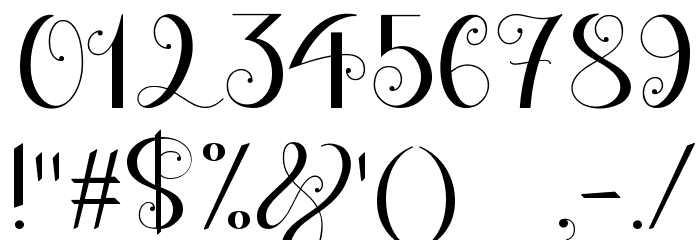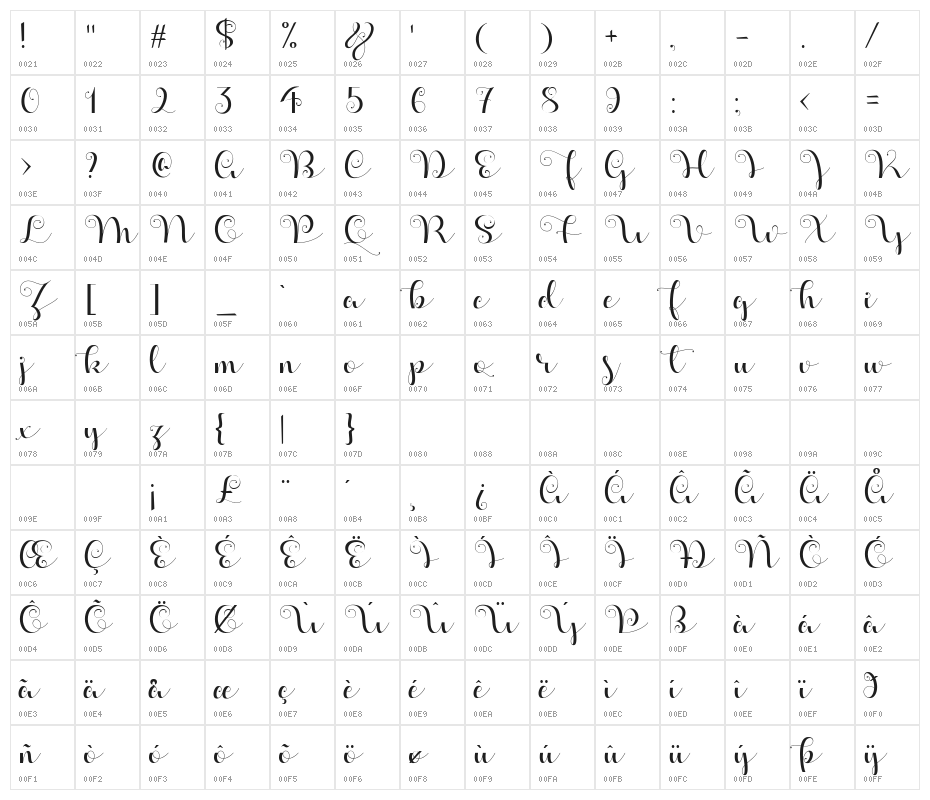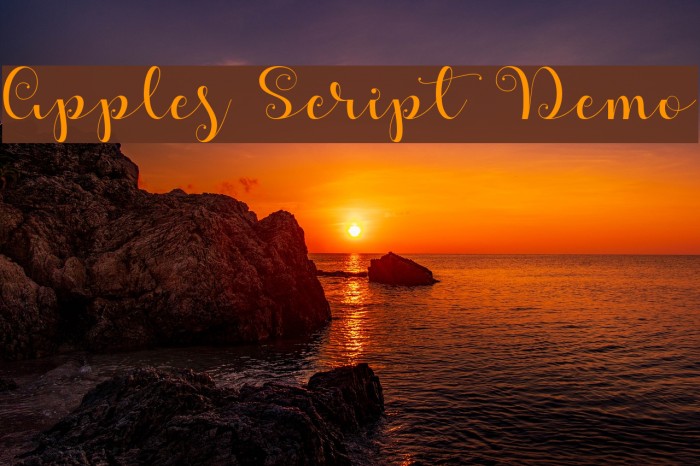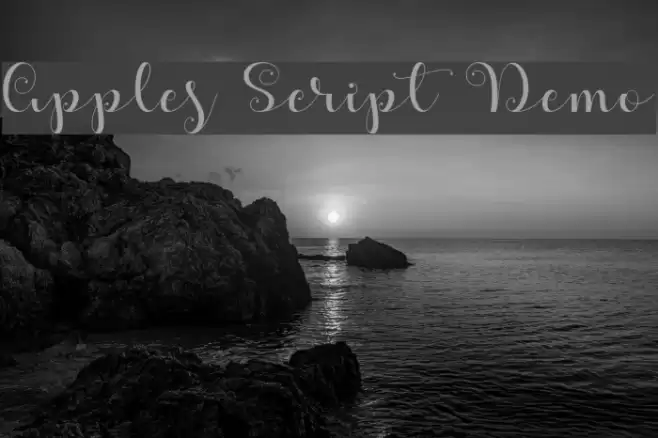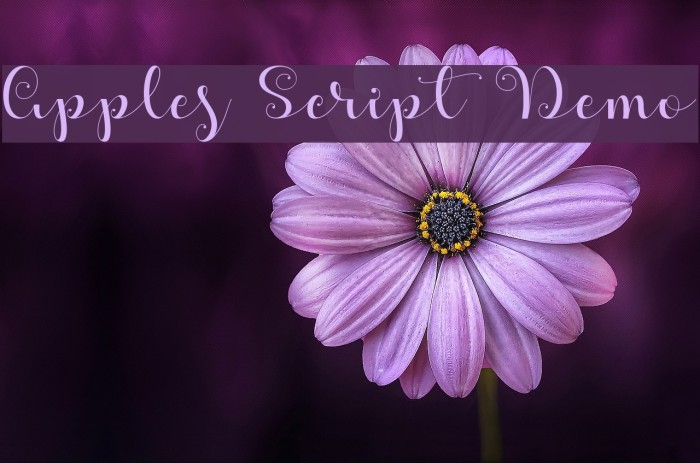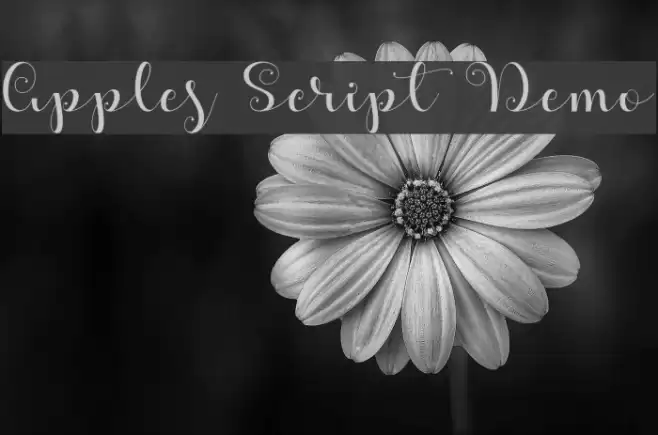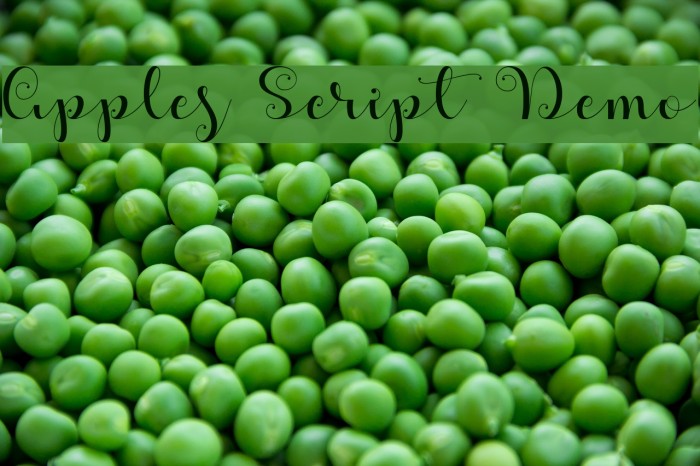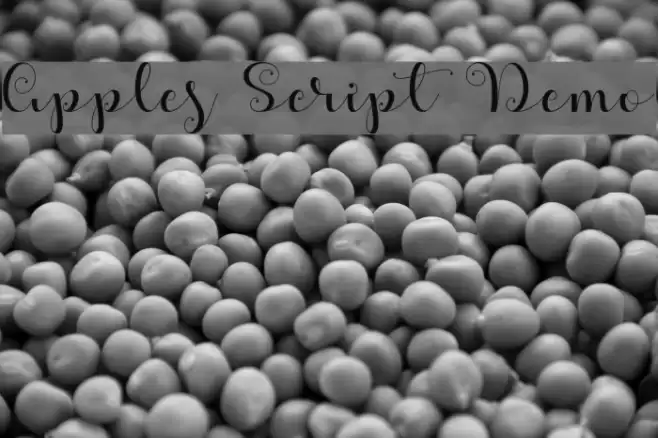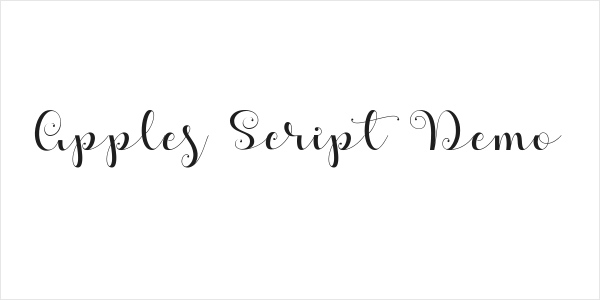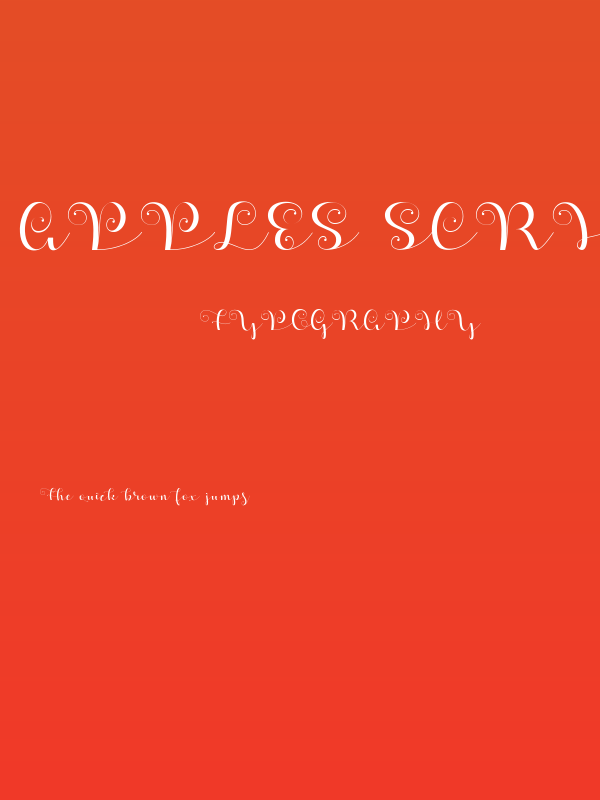
Apples Script Demo Font
Apples Script Demo Description
This elegant script font features a flowing, cursive style with intricate swirls and loops that add a touch of sophistication and charm. The uppercase letters are adorned with decorative flourishes, making them stand out with a sense of grandeur. The lowercase letters maintain a consistent, smooth flow, enhancing readability while retaining an artistic flair. Numbers and special characters are designed with similar embellishments, ensuring a cohesive look throughout. The font's overall appearance is both graceful and stylish, making it suitable for projects that require a touch of elegance and creativity.